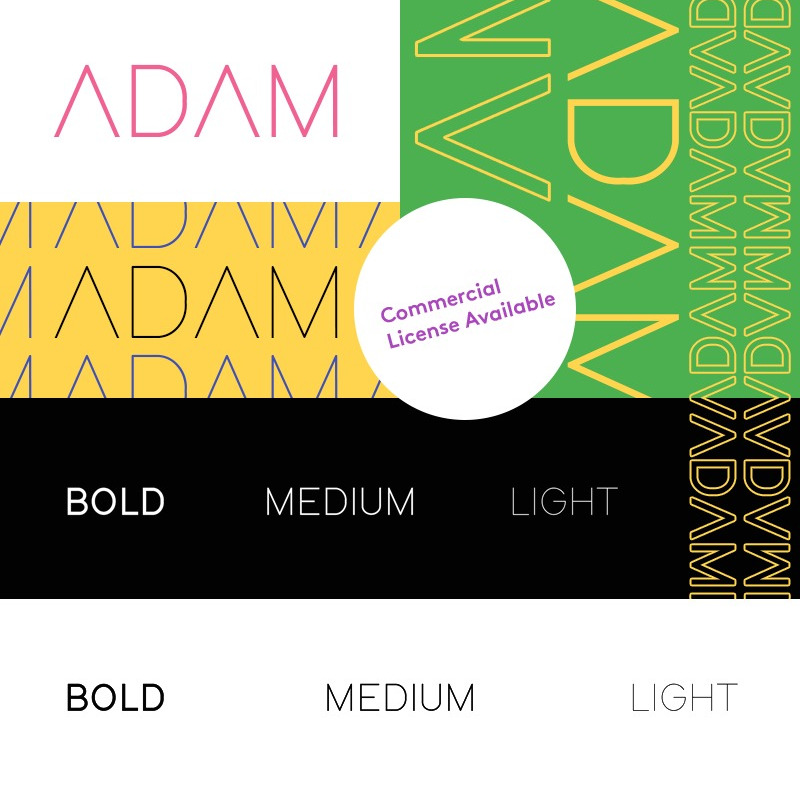
Adam Sans Serif Font is simple but significant, and defined by its crisp edges and modern touches. This font perfect for all kind of design: social media and visual content, web and UI design, posters and art collage, branding and logos, wedding typography and modern hi-tech design.